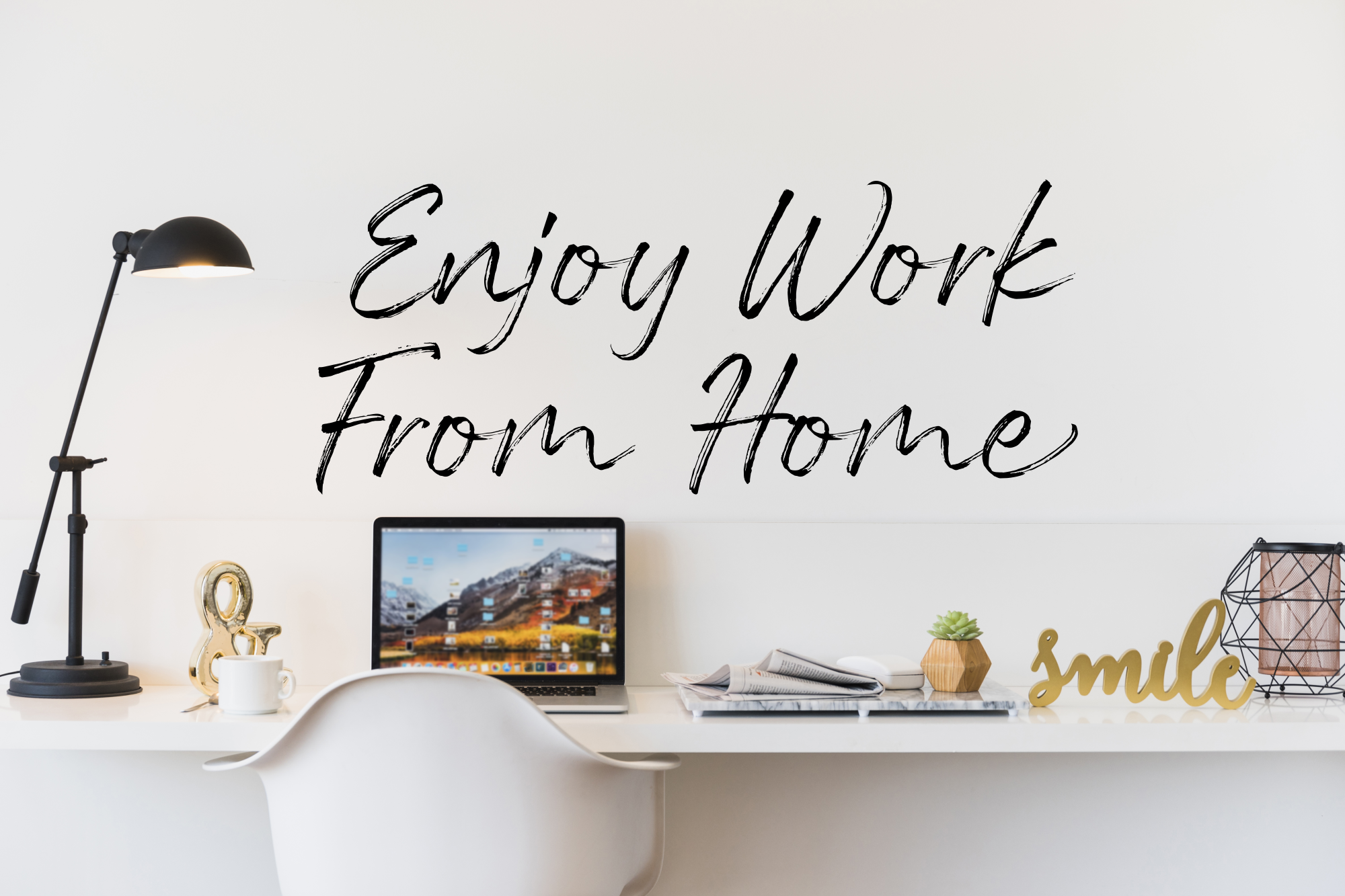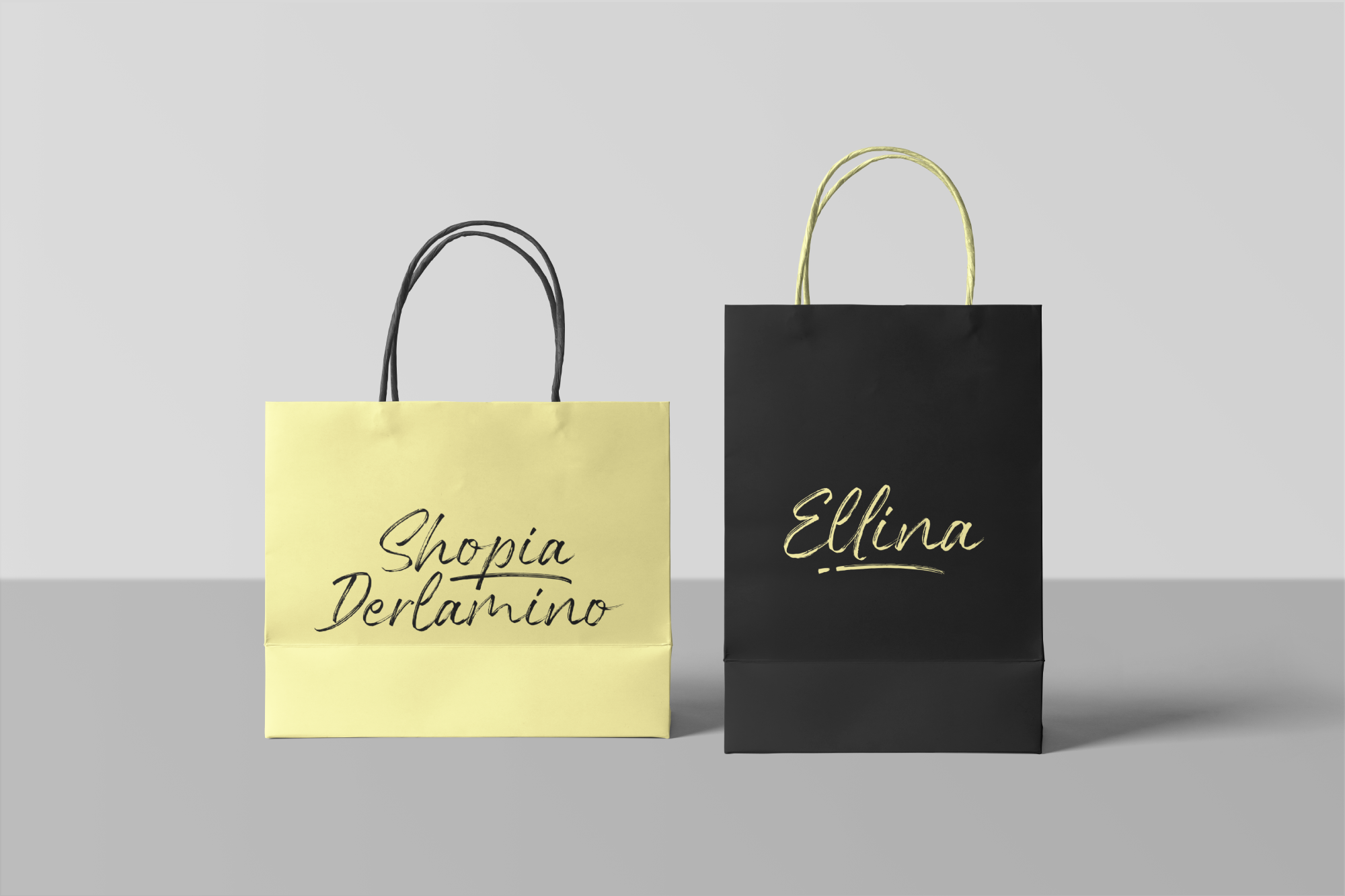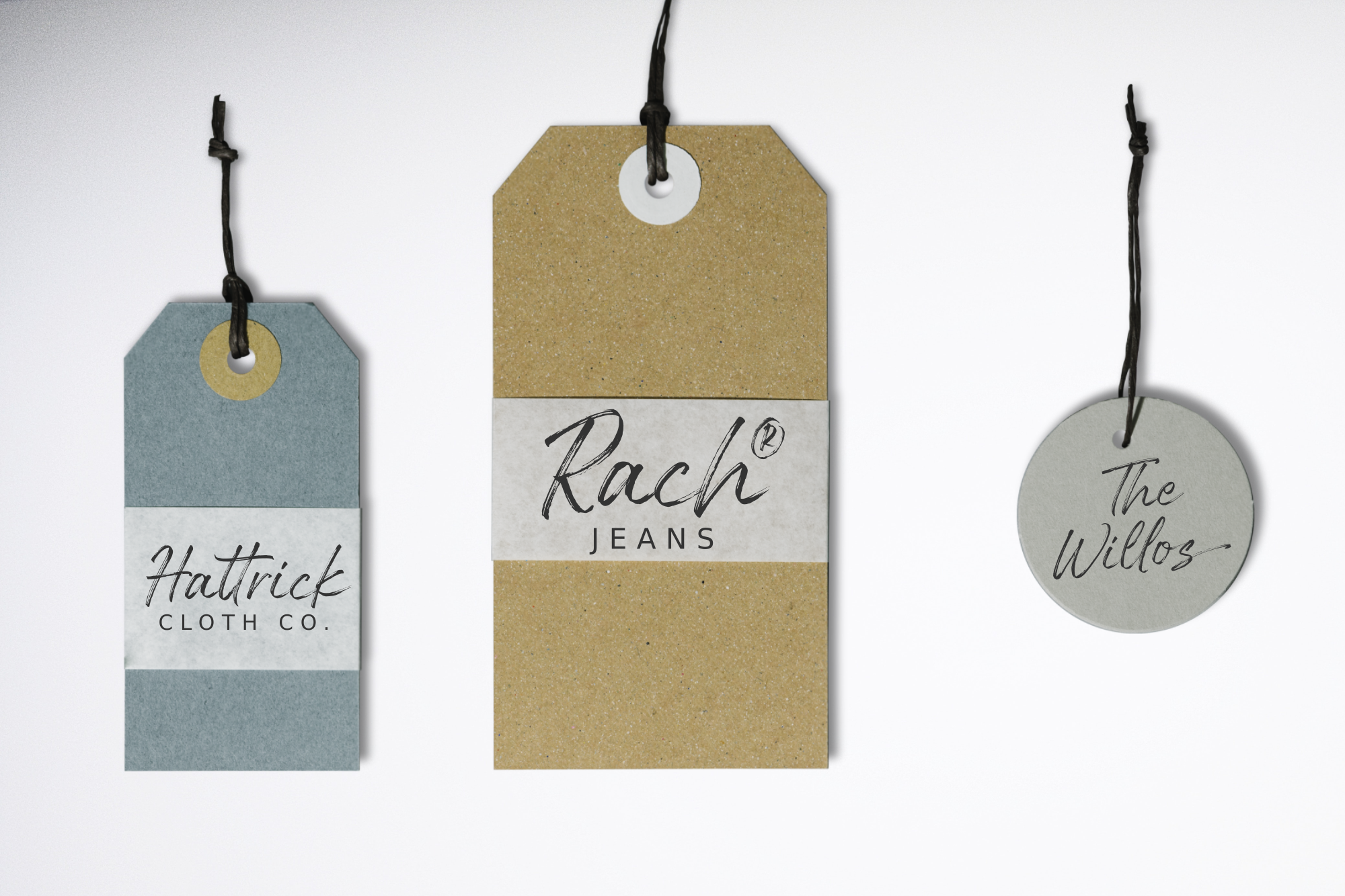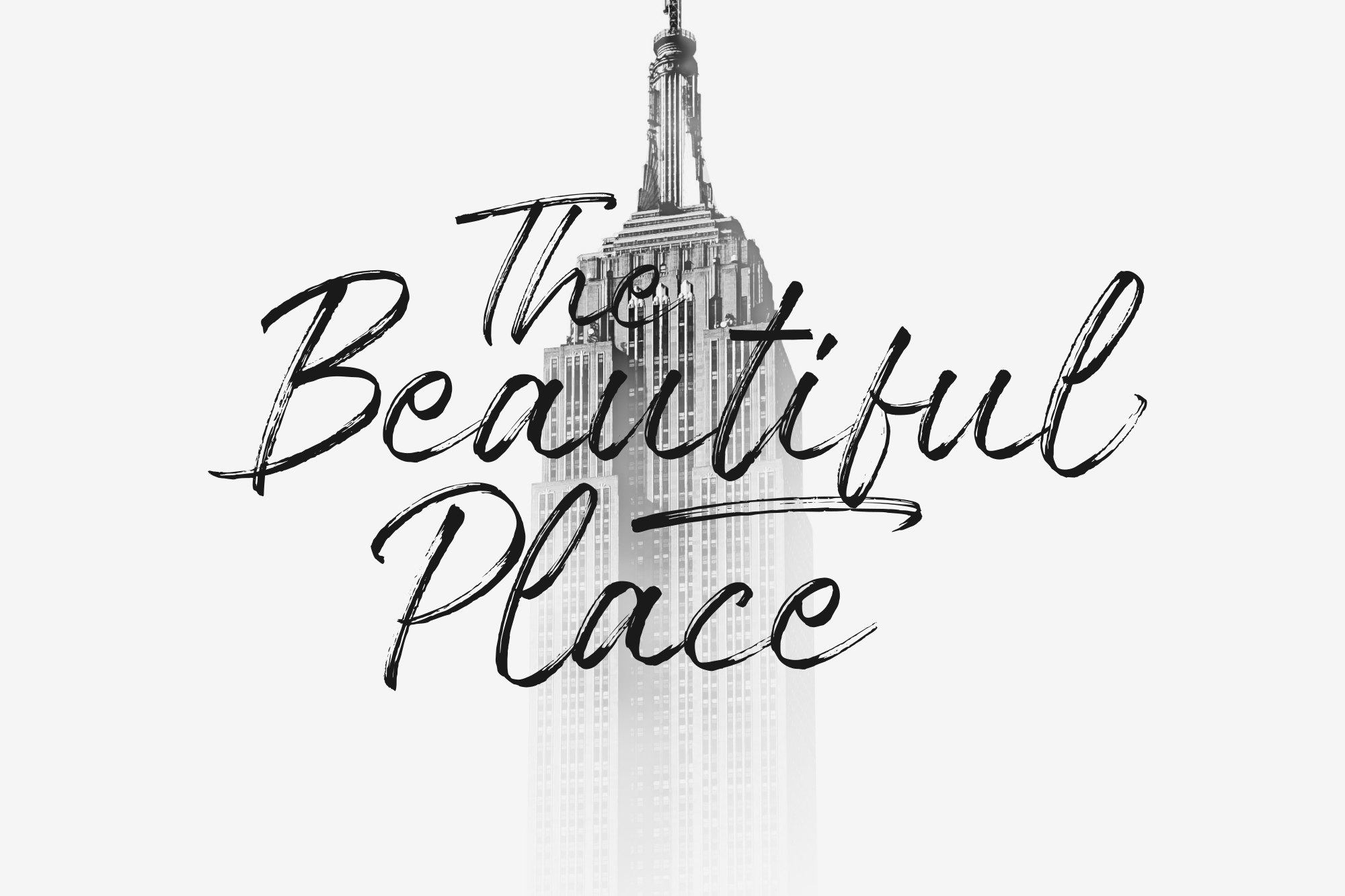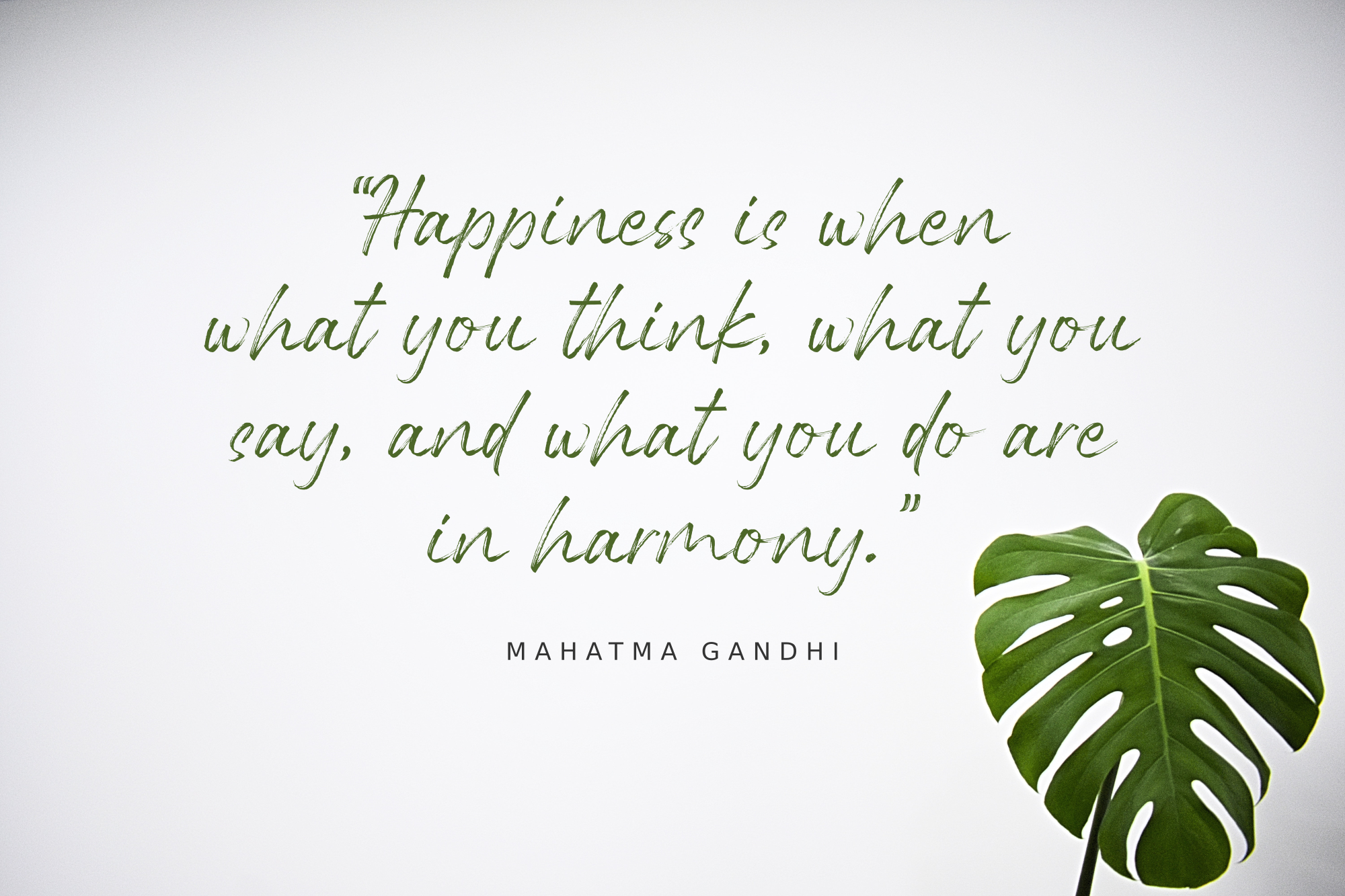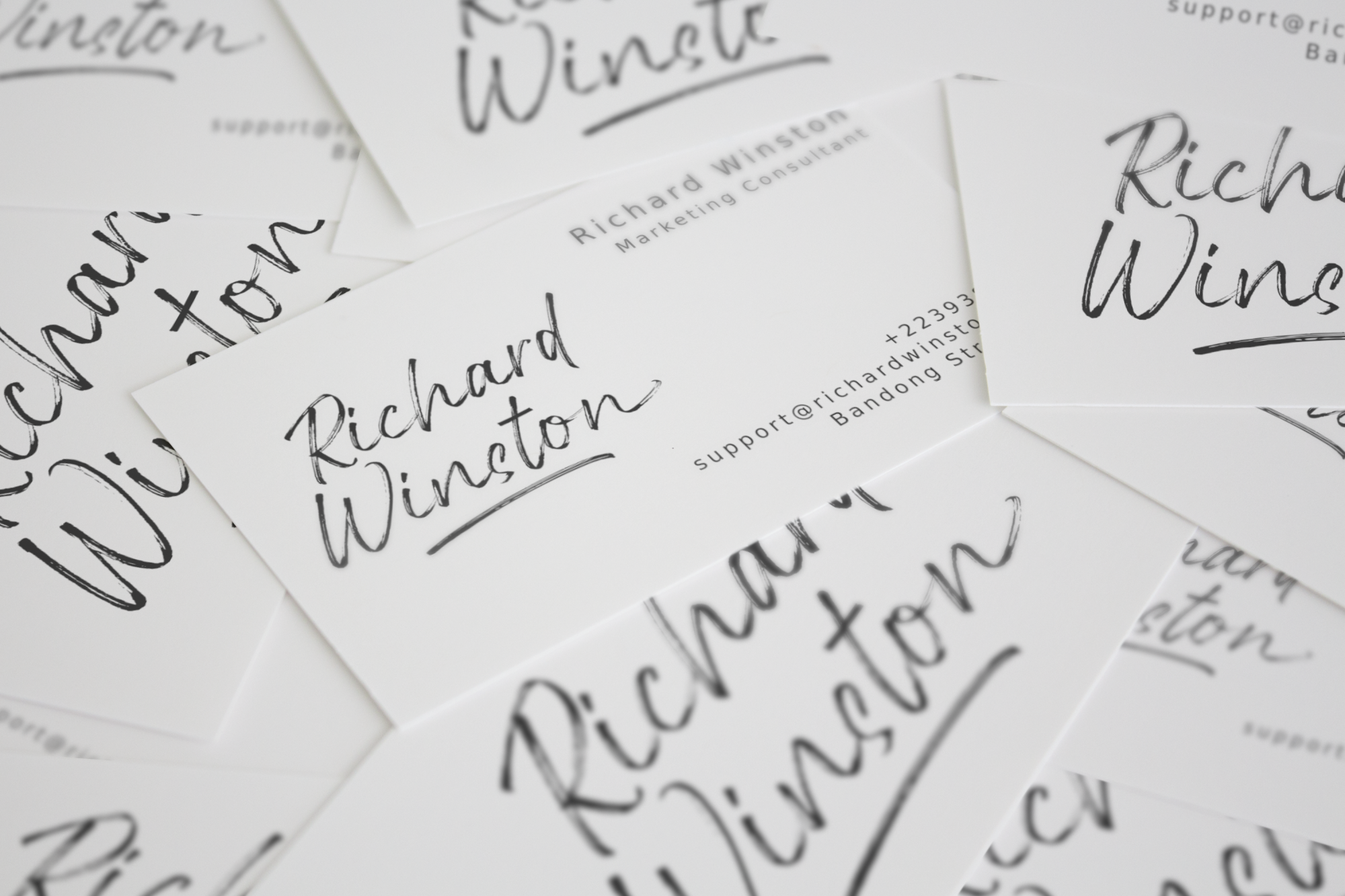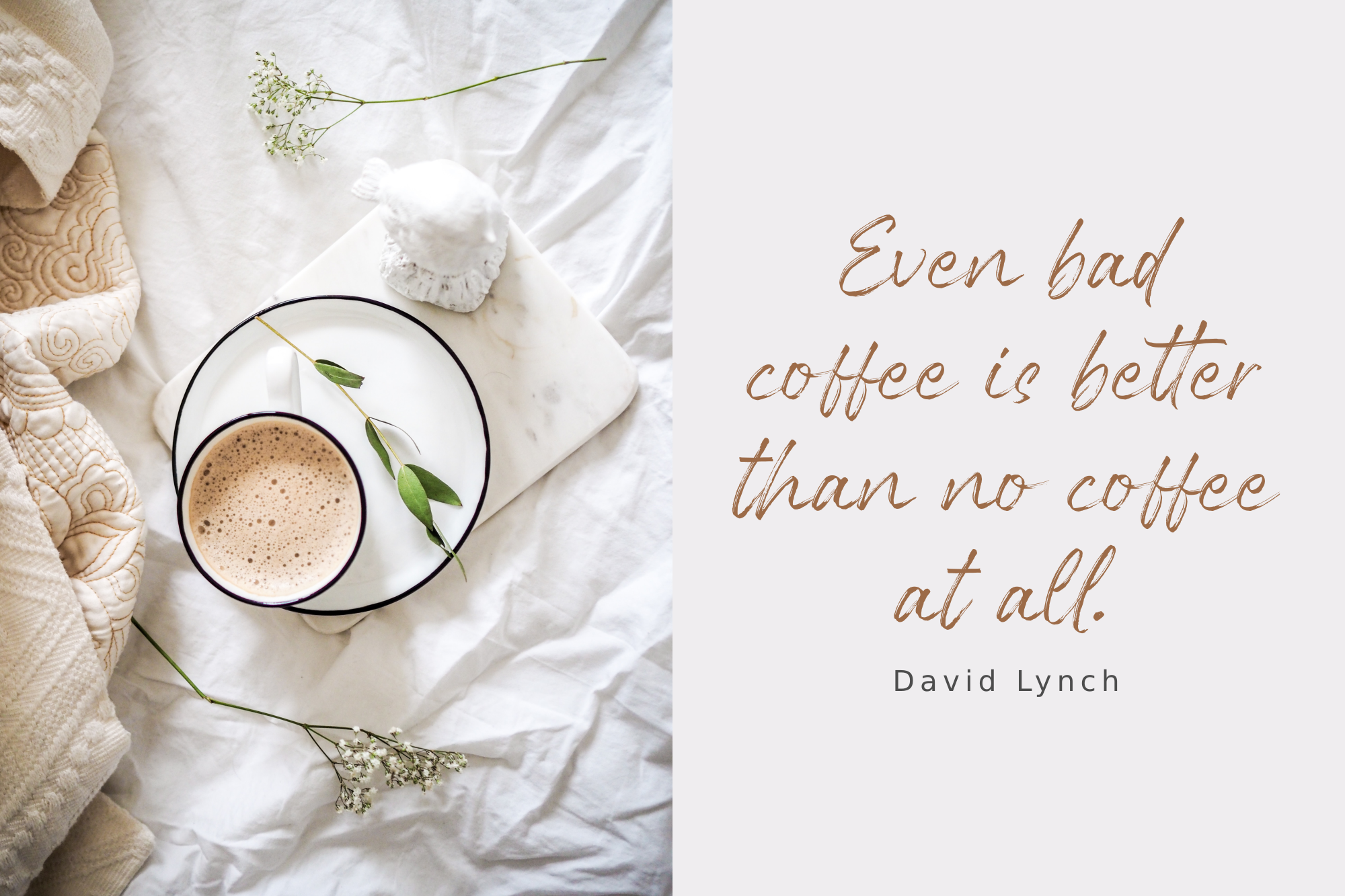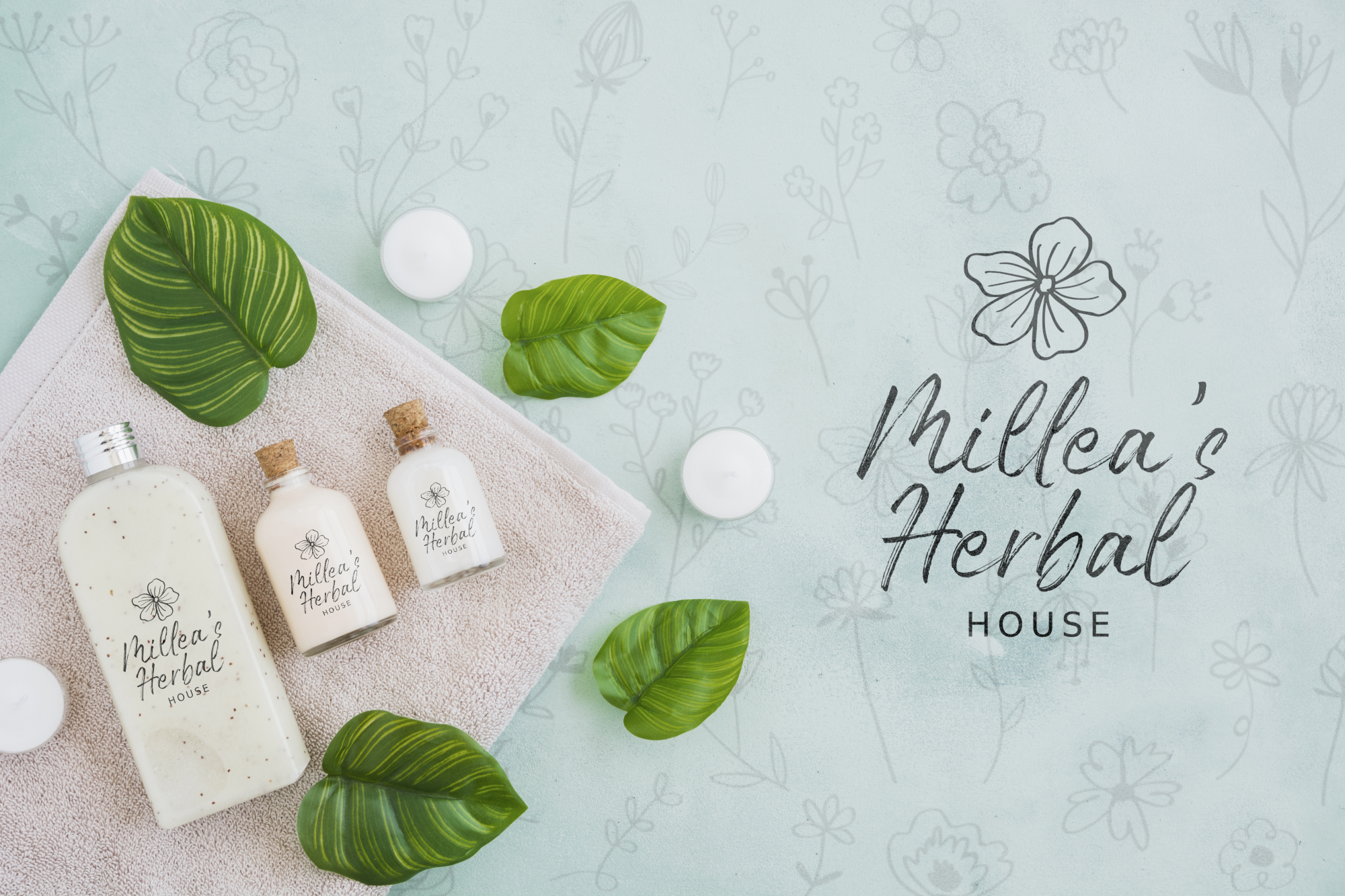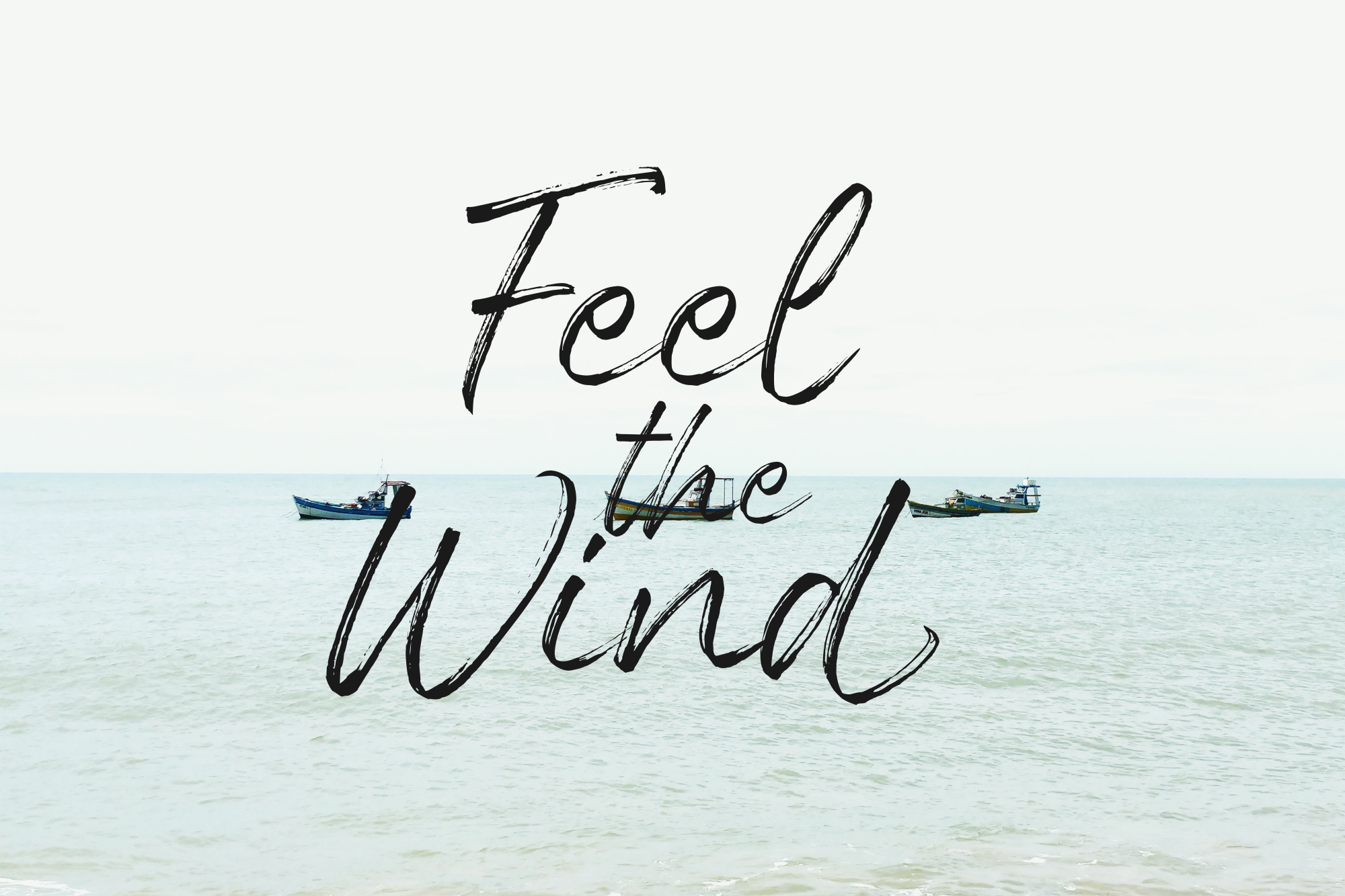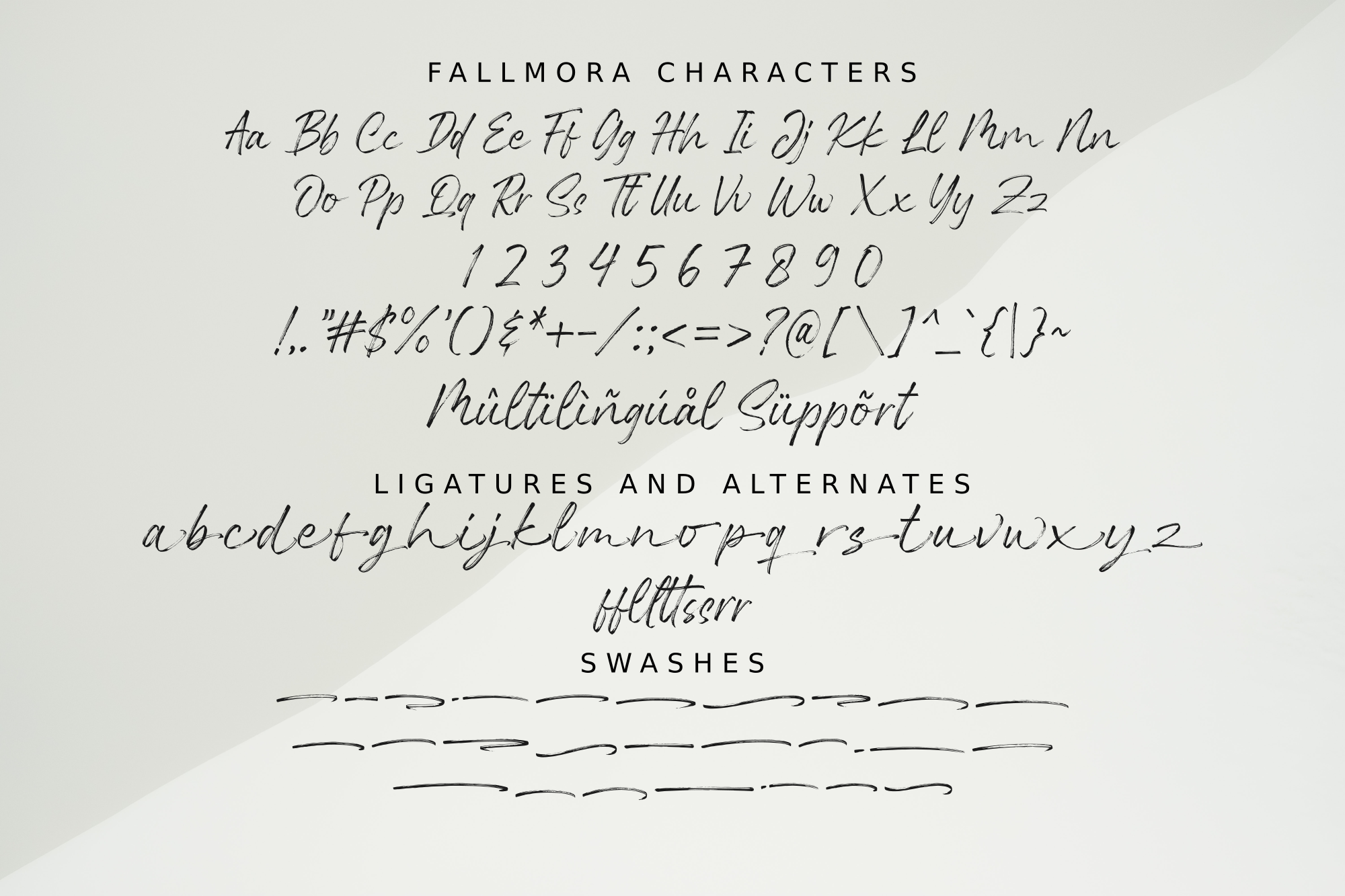
Fallmora - Handbrush Font
Fallmora is a casual and charming handwritten font created with a brush pen feel. Its natural style will help turn creative ideas into standout designs.
Fallmora is a casual and charming handwritten font created with a brush pen feel. Its natural style will help turn creative ideas into standout designs. It is suitable for logos, quotes, packaging, greeting cards, apparel, posters, and many other casual branding projects.
Logos, quotes, packaging, greeting cards, apparel, posters, and many other casual branding projects